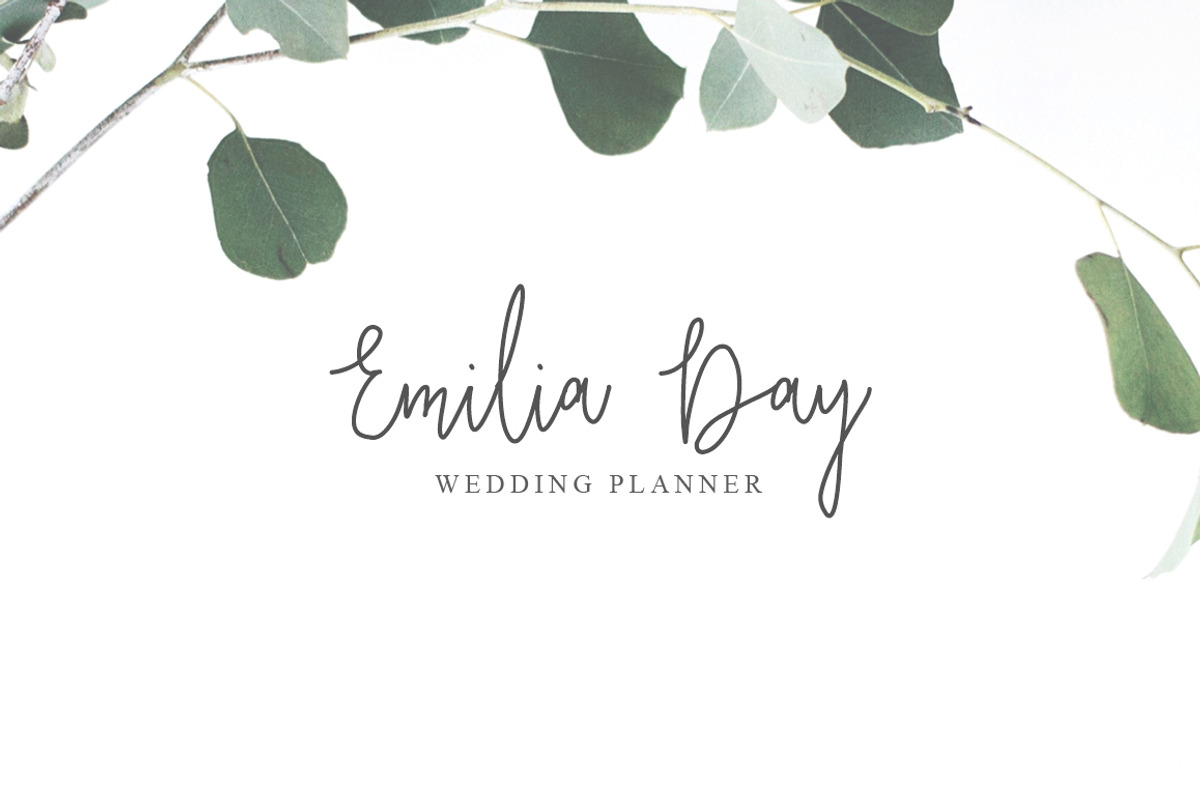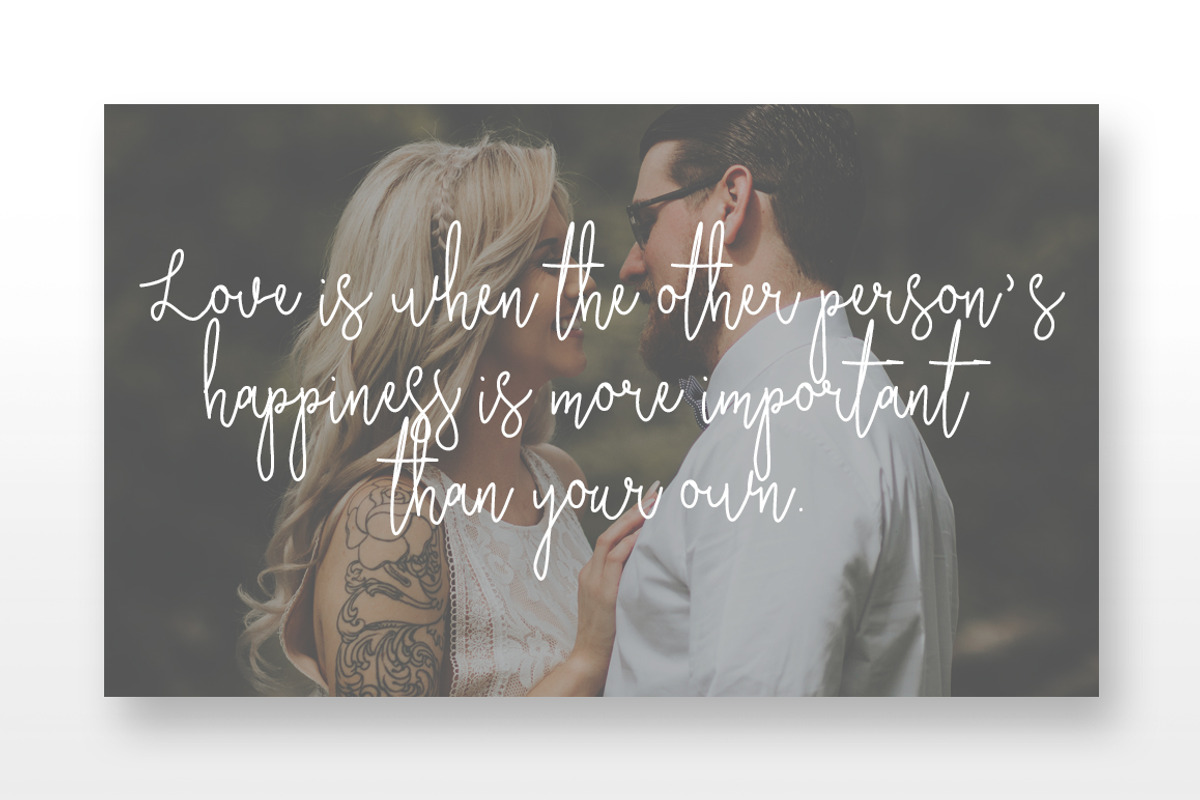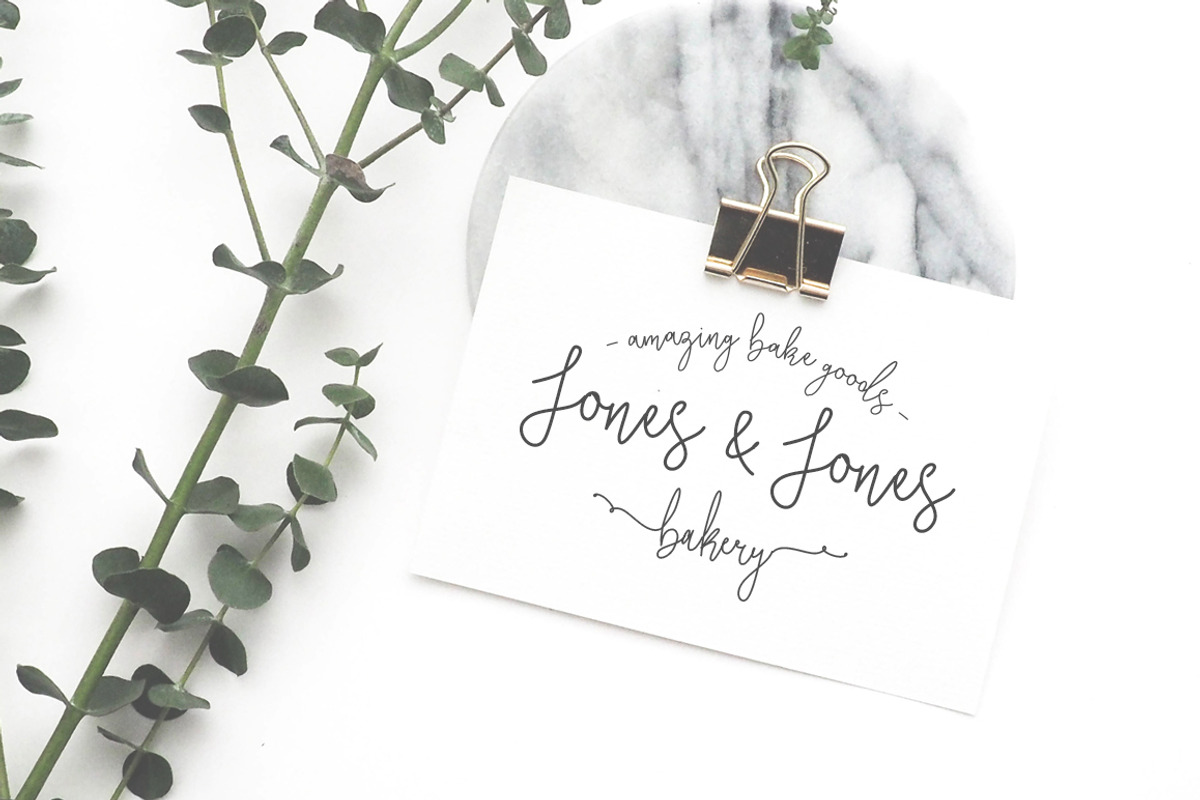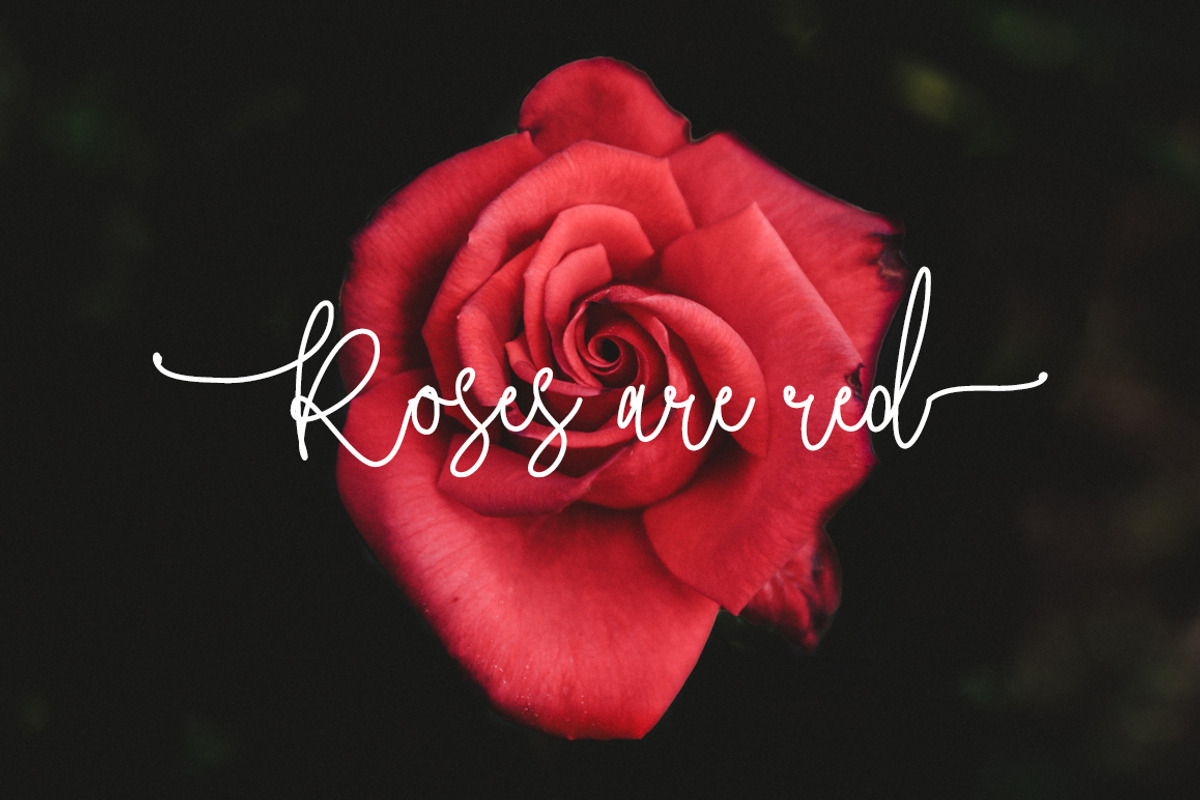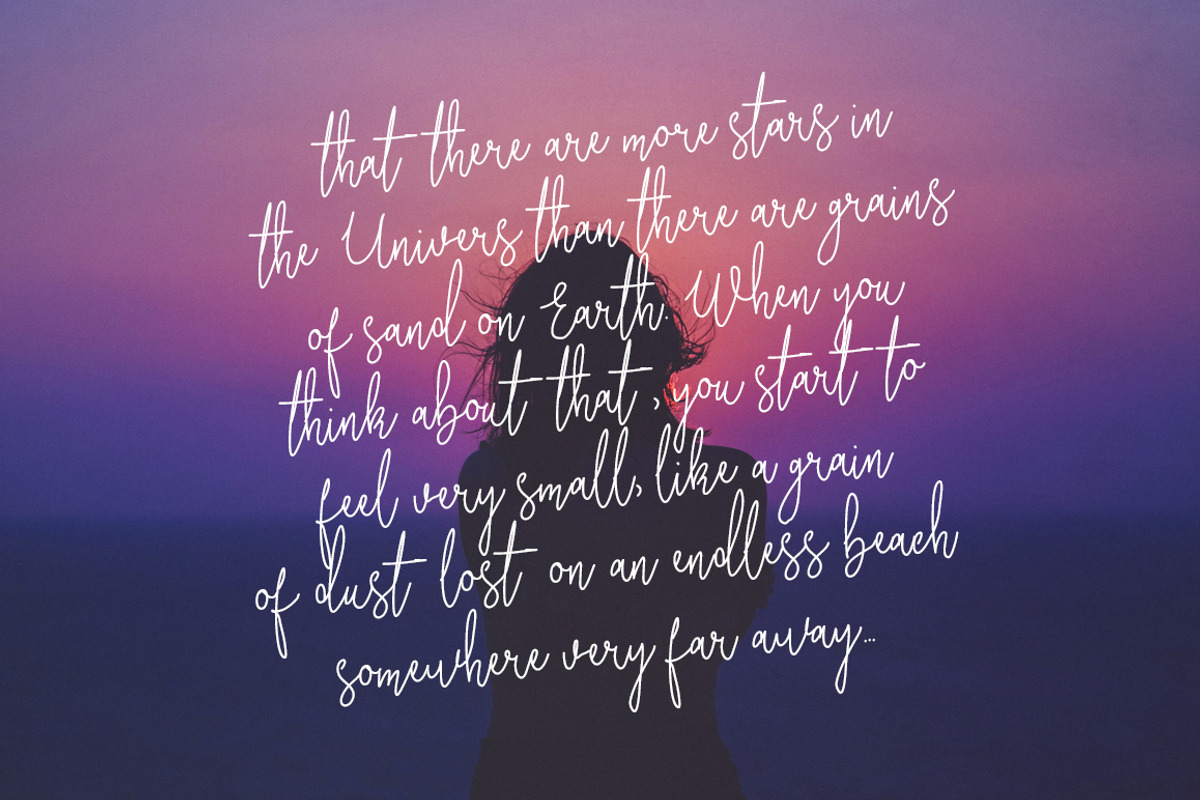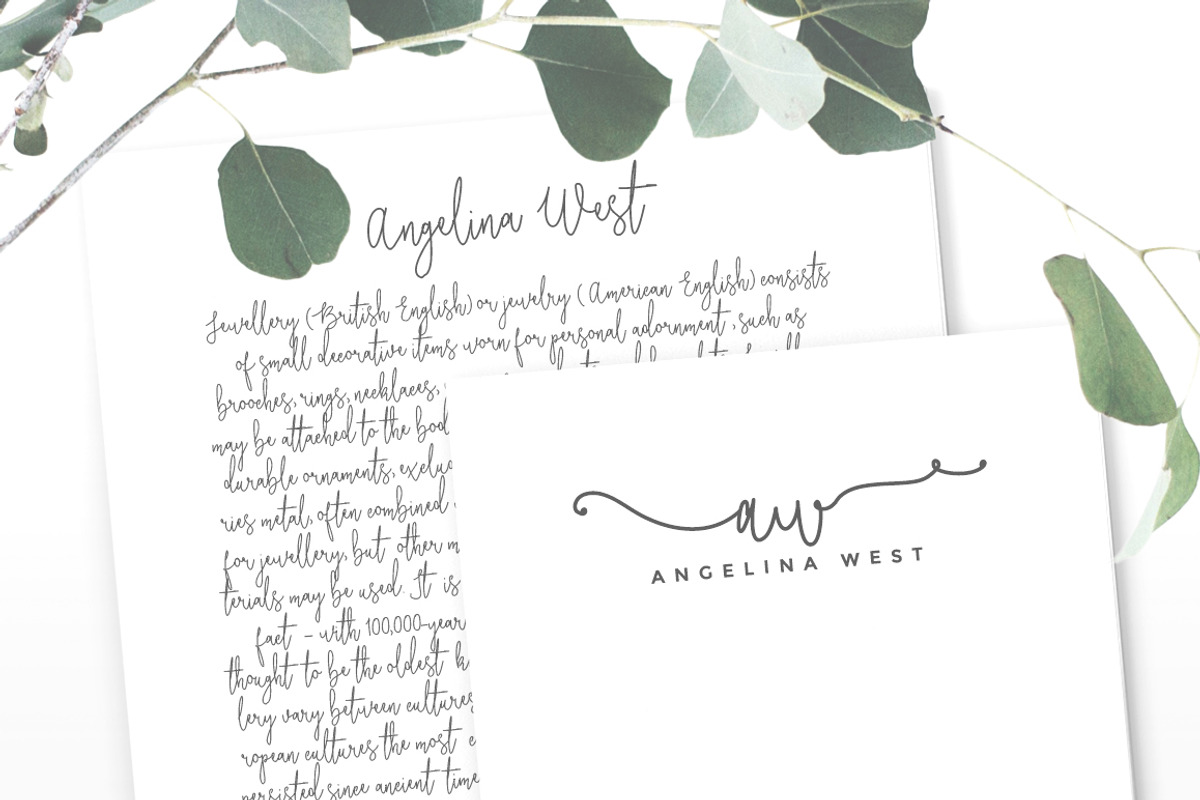
Bella Script Font
We are happy to introduce Bella Script, a script signature font that includes 2 versions, one with ligatures and a slightly different altvernative that includes swashes!
Bella script includes uppercase and lowercase letters, numerals and punctuation and it's a perfect choice for signature type texts, titles, invitations or very stylish logos as seen in the presentation images.
2 fonts - one with ligatures and one with swashes
Bella Script A includes ligatures
Bella Script B includes swashes